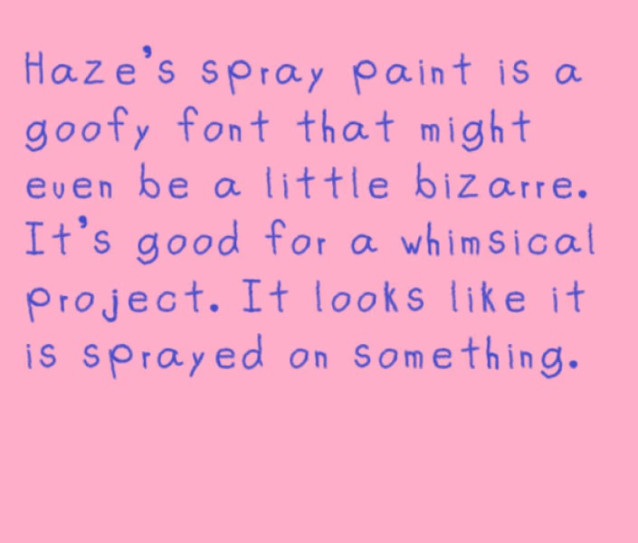
HazesSprayPaint Font
HazesSprayPaint Font – This is a fun font for the quirky projects. It’s a bit uneven like if someone was spray painting. It is a bit of a big file, which might slow down the process. Inkscape can’t seem to render it very well.